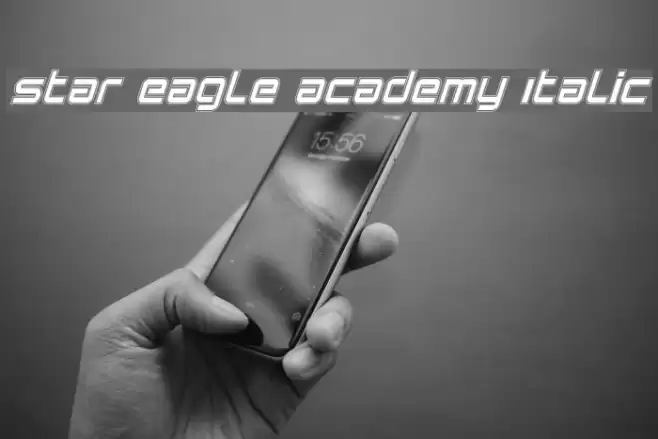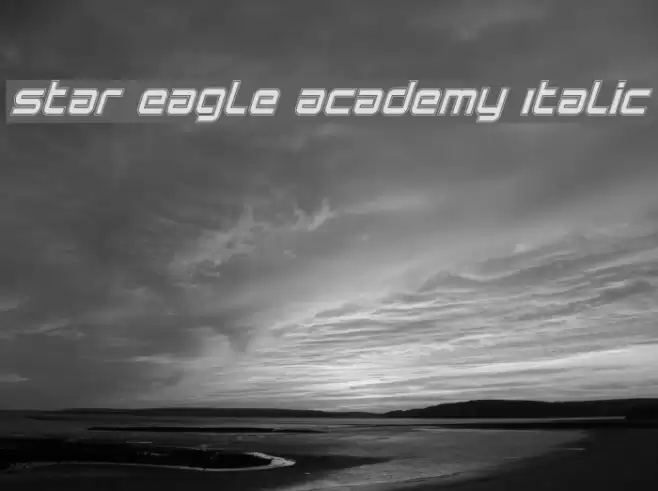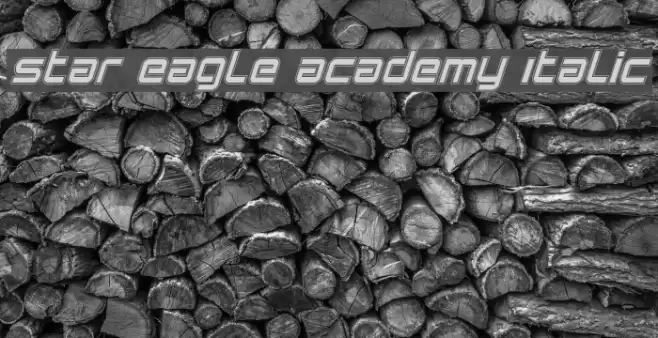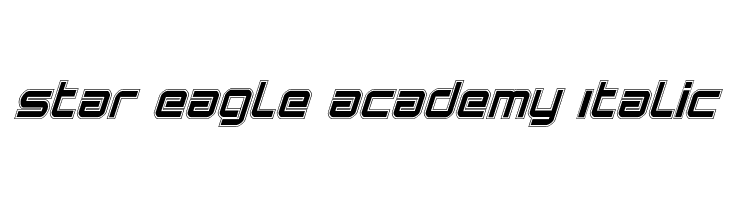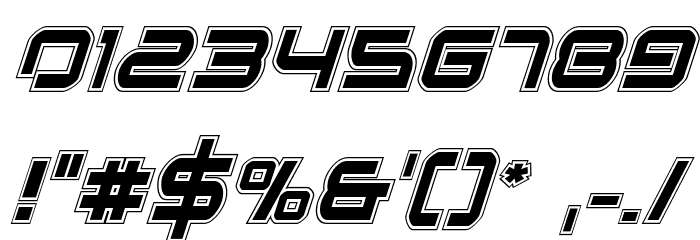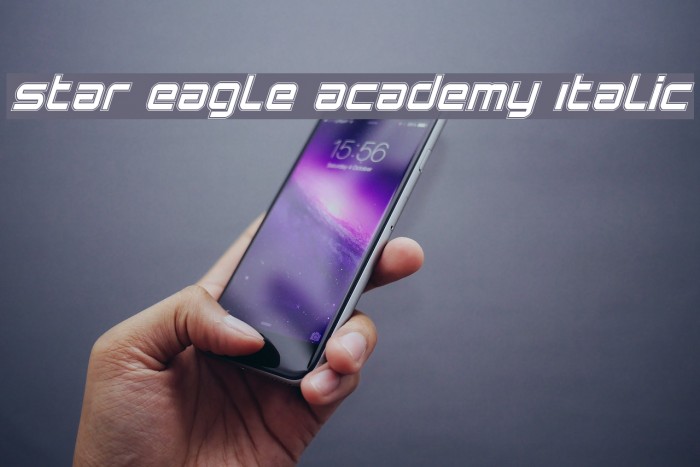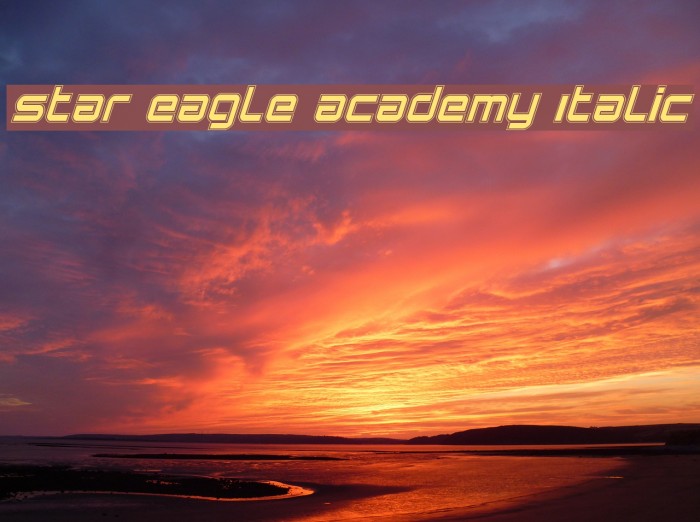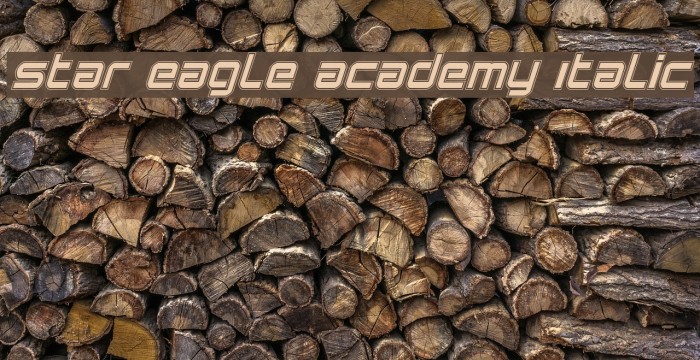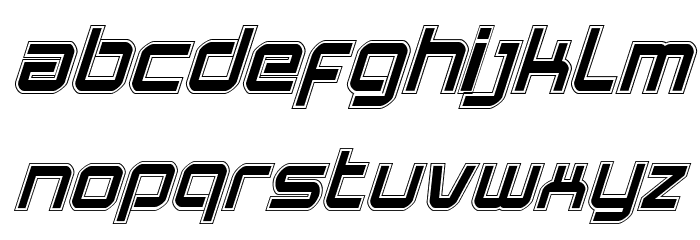
Star Eagle Academy Italic Font
Star Eagle Academy Italic Description
This font features a bold, italicized style with a futuristic and dynamic appearance. The letters are outlined, giving them a three-dimensional effect that adds depth and interest. The characters are slightly condensed, enhancing the sleek and modern aesthetic. The uppercase and lowercase letters maintain a consistent style, with sharp angles and clean lines. The numerals and special characters are designed to match the overall theme, providing a cohesive look across all elements. This font is ideal for projects that require a strong, impactful presence.
A bold, italicized font with a futuristic, outlined style and three-dimensional effect.
- Proposed Projects: Ideal for sci-fi themed designs, video game titles, tech branding, and modern posters.
- Overall Style: Futuristic